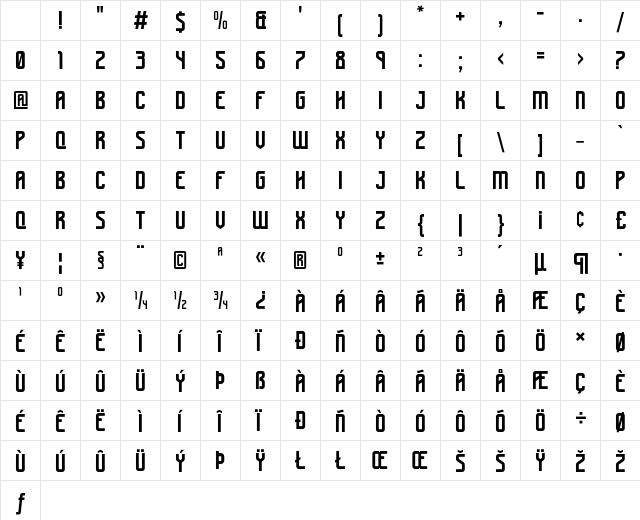
Boldness is a composed and adaptable typeface that performs quietly and consistently across a wide range of design contexts. Its bold stroke weight gives it real presence on the page.